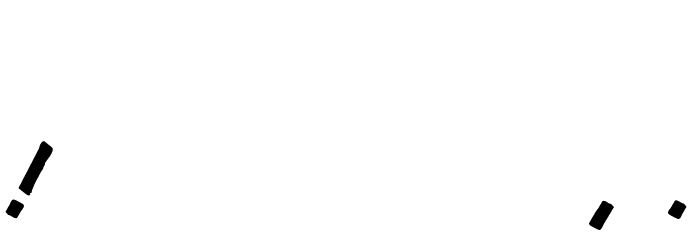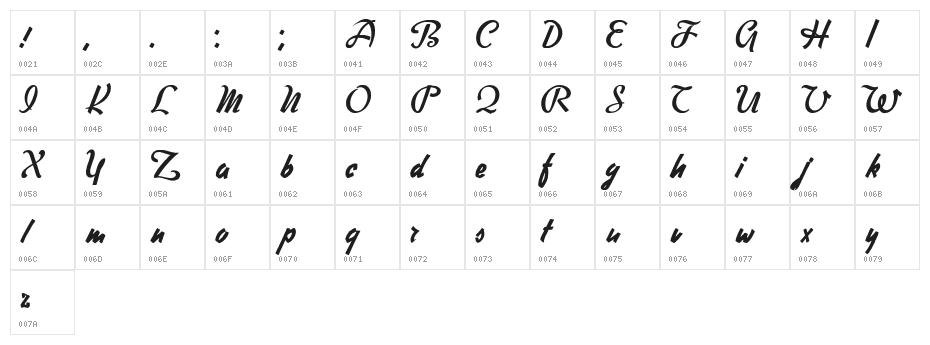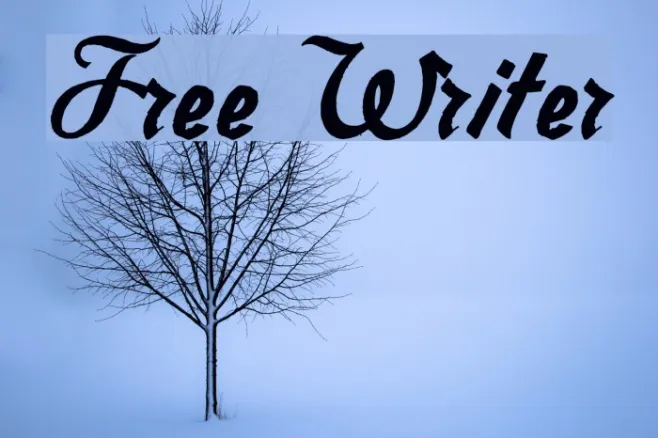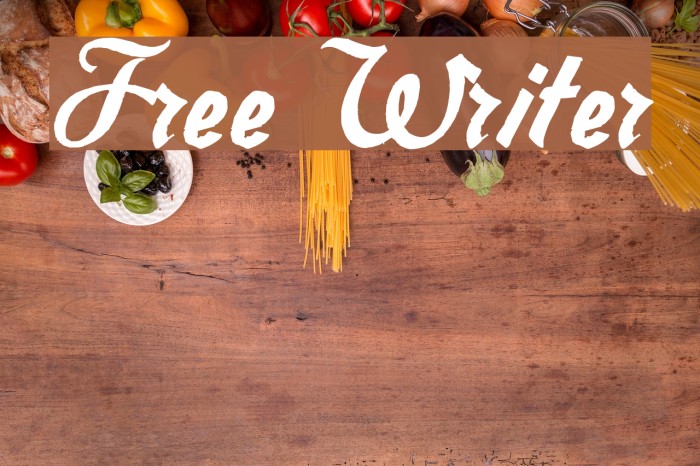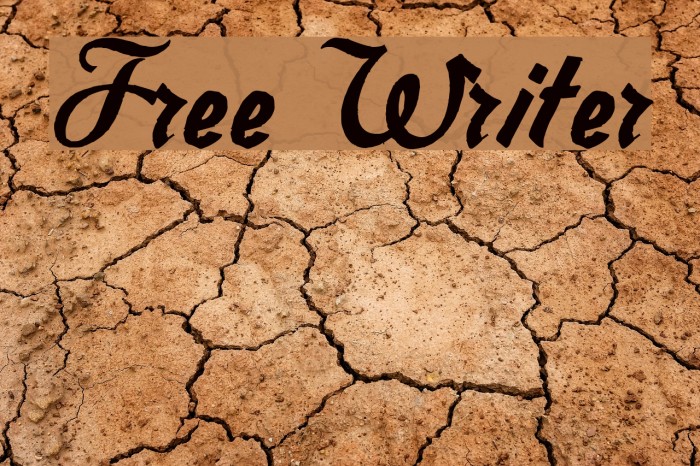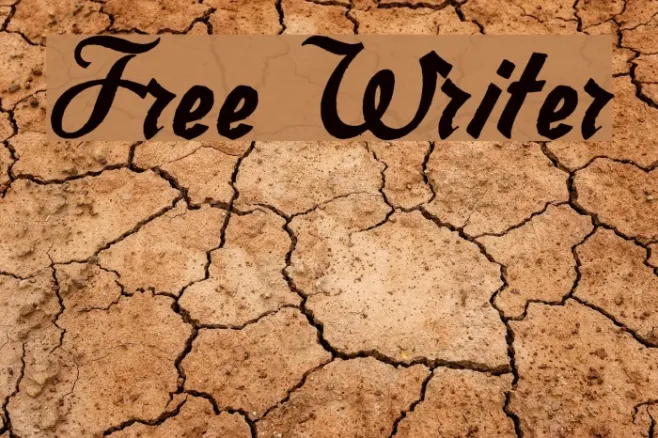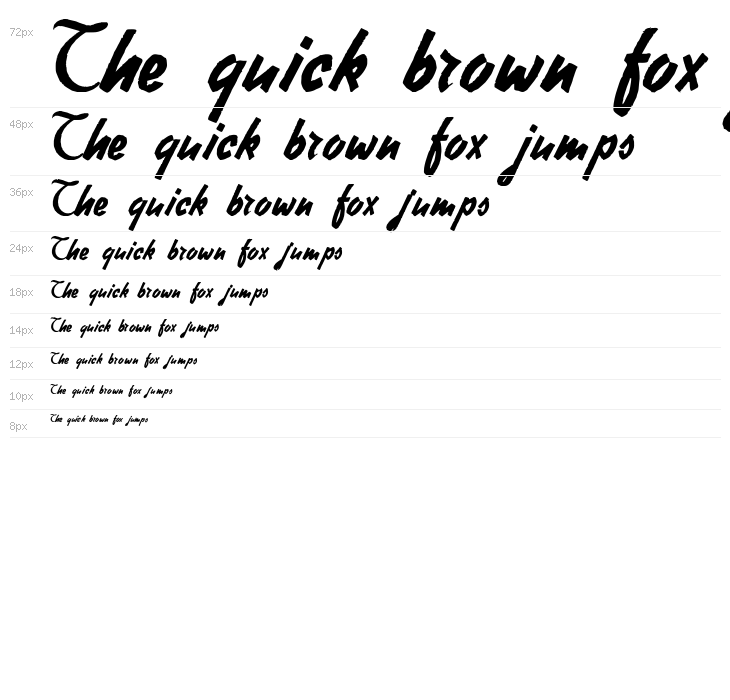
Free Writer Font
Free Writer Description
This font features a dynamic and expressive style, characterized by its cursive and flowing letterforms. The uppercase letters exhibit a sense of elegance with their sweeping curves and loops, while the lowercase letters maintain a consistent rhythm and fluidity. The strokes are bold and confident, adding a touch of drama and flair. The overall appearance is both artistic and legible, making it suitable for creative and decorative purposes. The font's unique style is further enhanced by its slightly slanted orientation, giving it a sense of movement and energy.
| Proposed Projects | Ideal for creative projects such as invitations, greeting cards, logos, and branding materials that require a touch of elegance and flair. |